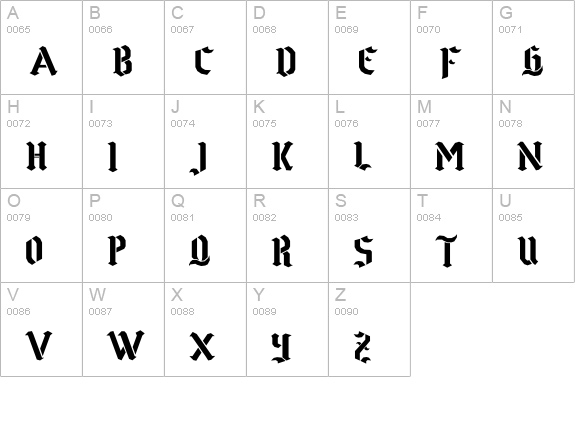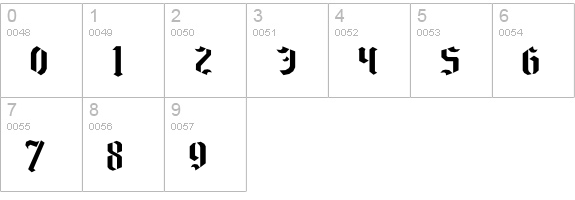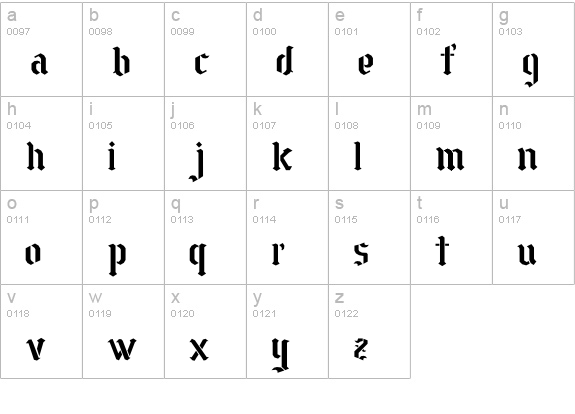
Goth Stencil font is a striking and edgy typeface that adds a touch of darkness and mystery to any design project. Created with meticulous attention to detail, this font features bold, sharp lines that give it a unique and distinctive appearance. Perfect for creating eye-catching headlines, logos, and posters, Goth Stencil font is sure to make a lasting impression. Its bold and powerful letterforms make it ideal for projects that require a strong and impactful visual presence. One of the standout features of Goth Stencil font is that it is completely free to download. Available exclusively at FontsMarket.com, this font offers designers and creatives the opportunity to add a touch of gothic elegance to their work without breaking the bank. Whether you're working on a personal project or a professional design, Goth Stencil font provides a versatile and dynamic typographic solution. Its clean and crisp design ensures legibility at any size, making it suitable for a wide range of applications. So why wait? Download Goth Stencil font today and unleash your creativity. With its striking appearance and the added benefit of being freely available, this font is a must-have for any designer looking to make a bold statement. Get your hands on this unique typeface and elevate your designs to new levels of sophistication and style.